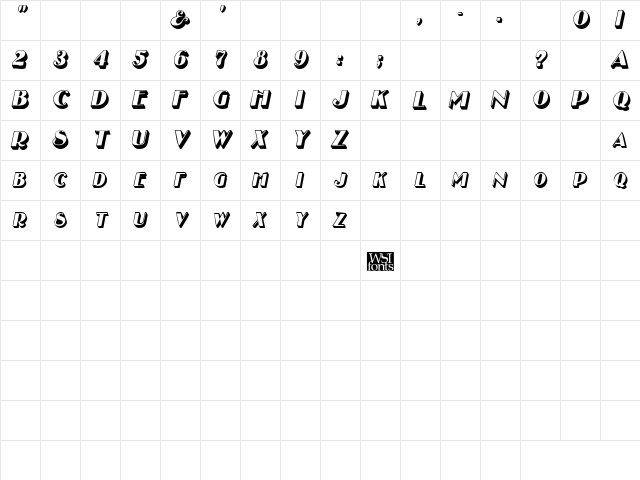
EsplanadeDisplay Italic
Design Context for EsplanadeDisplay Typeface
EsplanadeDisplay is built around its visual character rather than neutral utility — its distinctive forms are designed to make an impression at display sizes. The slanted form adds forward momentum and visual energy.
Font Pairing: Pair with a clean neutral sans-serif for body copy to let EsplanadeDisplay's character lead without overwhelming the composition.
Pro Tip: Use EsplanadeDisplay exclusively at display sizes — it was designed to be seen, not read at length. Let a neutral companion handle body copy.